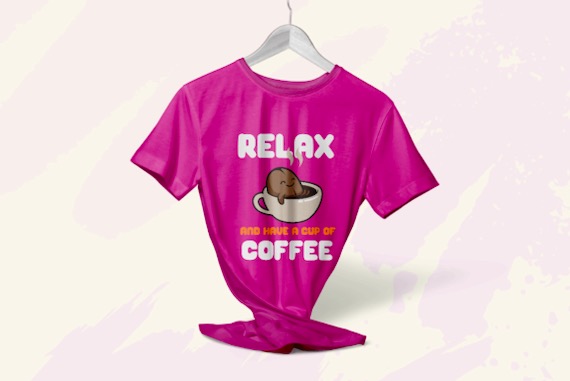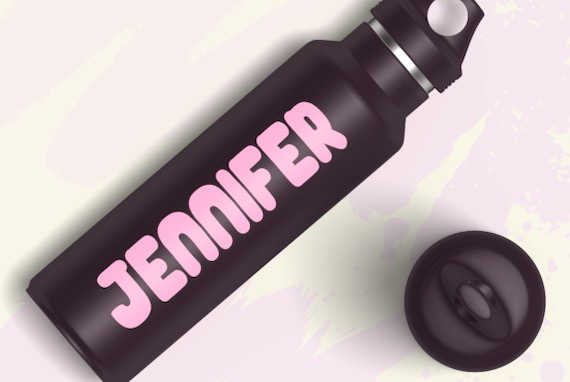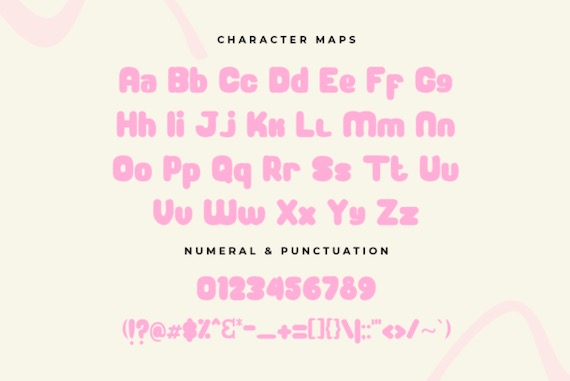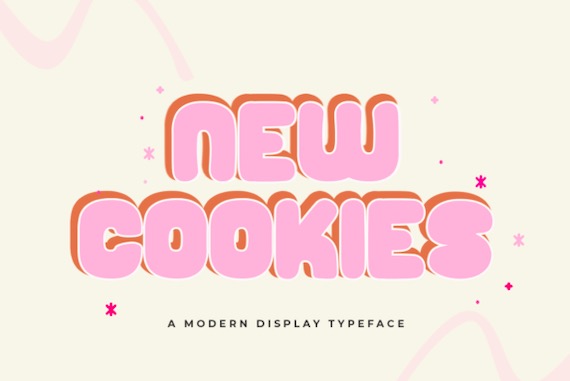
New Cookies is a Display comic Font that was created and shared by FontKong. It has a familiar Cartoon lool in every letter, this font is very suited for kids’ designs. It embodies playfulness and authenticity and is the perfect choice for any children’s activity or school project and is perfectly suited for all quotes, logos, lettering, banner, t-shirt design materials, and much more!
New Cookies Display Comic Font